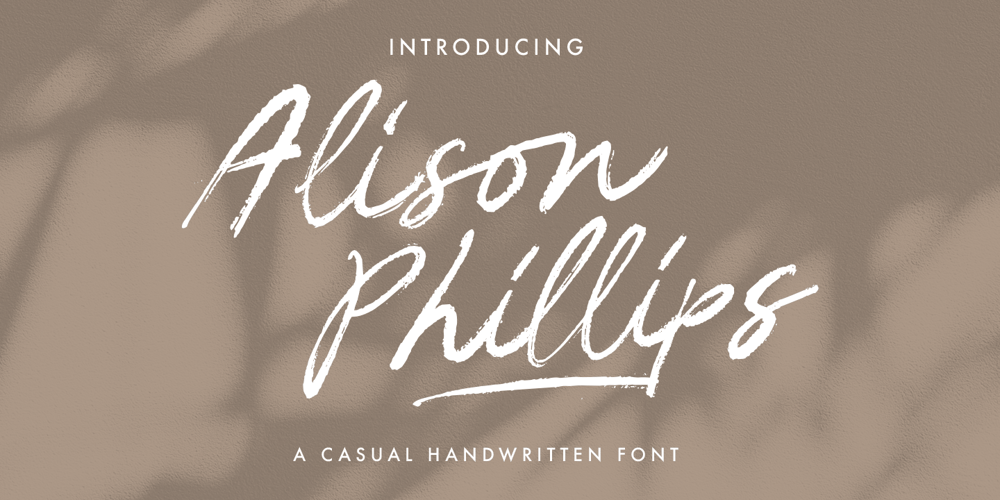
Alison Phillips Font Family was designed by Hendry Juanda and published by Letterhend. Alison Phillips contains 1 styles and family package options. Introducing Alison Phillips, a Casual handwritten font designed to bring a touch of authenticity and personal flair to your projects. With its textured brush look, this font exudes an organic and intimate feel, allowing your designs to evoke a sense of uniqueness and character.Features : Uppercase & lowercase Numbers and punctuation Alternates & Ligatures Multilingual PUA encoded We highly recommend using a program that supports OpenType features and Glyphs panels like many of Adobe apps and Corel Draw, so you can see and access all Glyph variations.